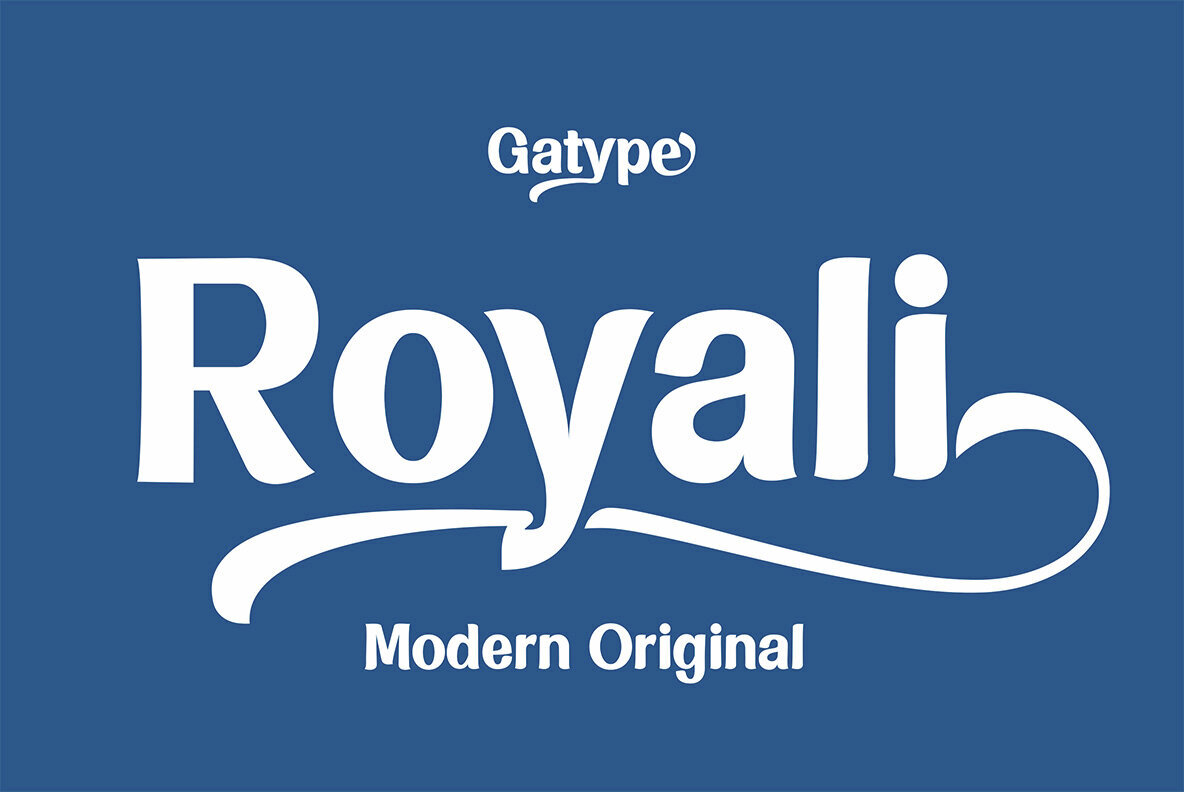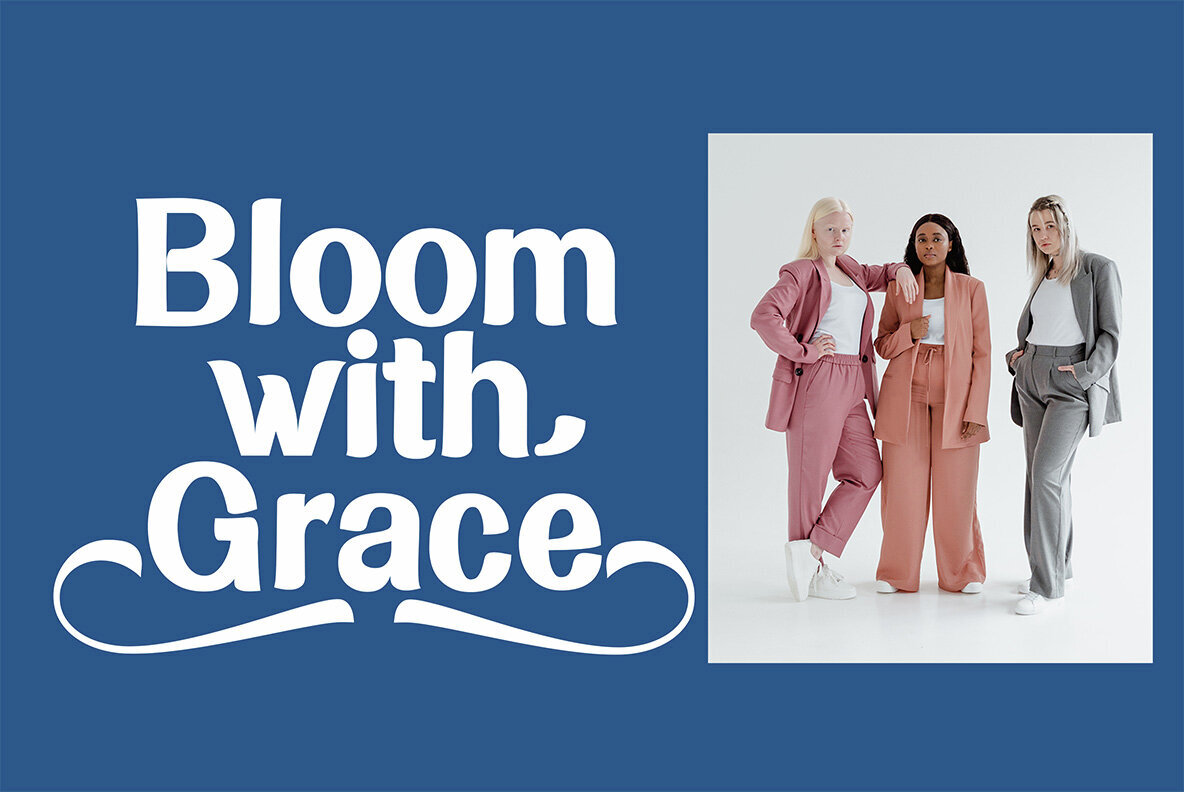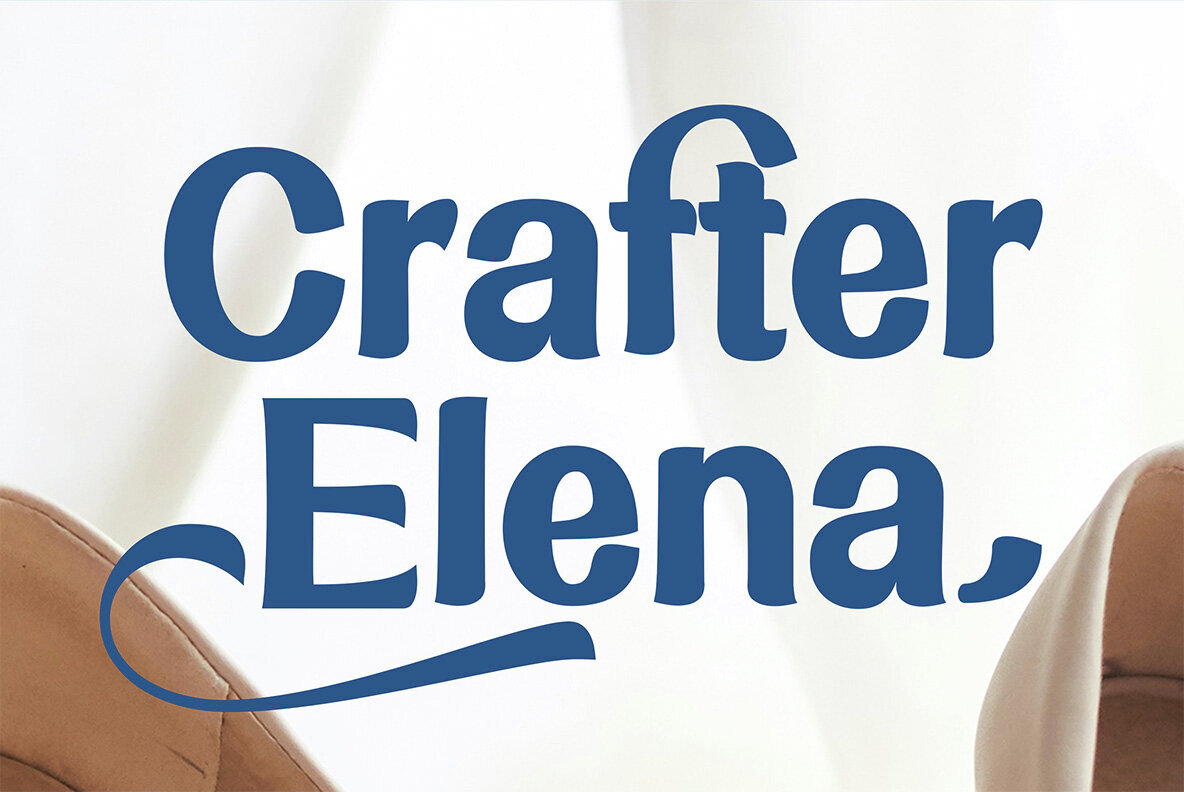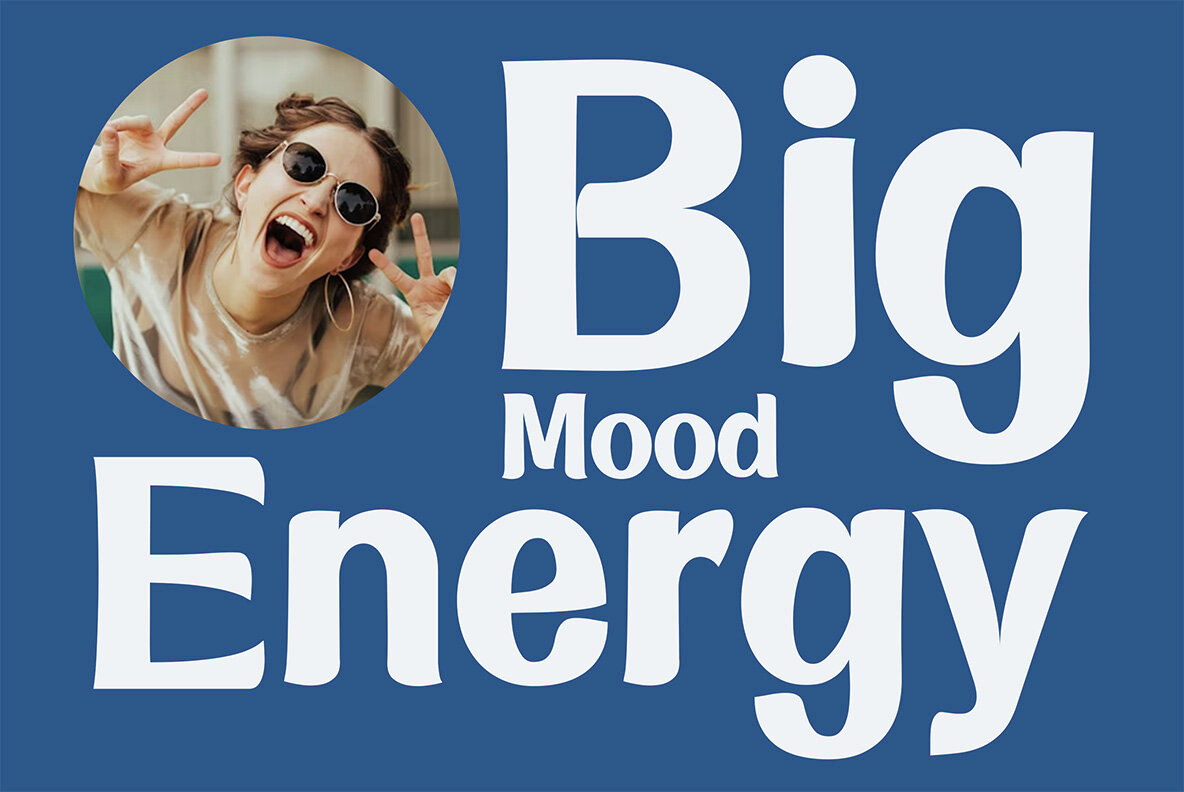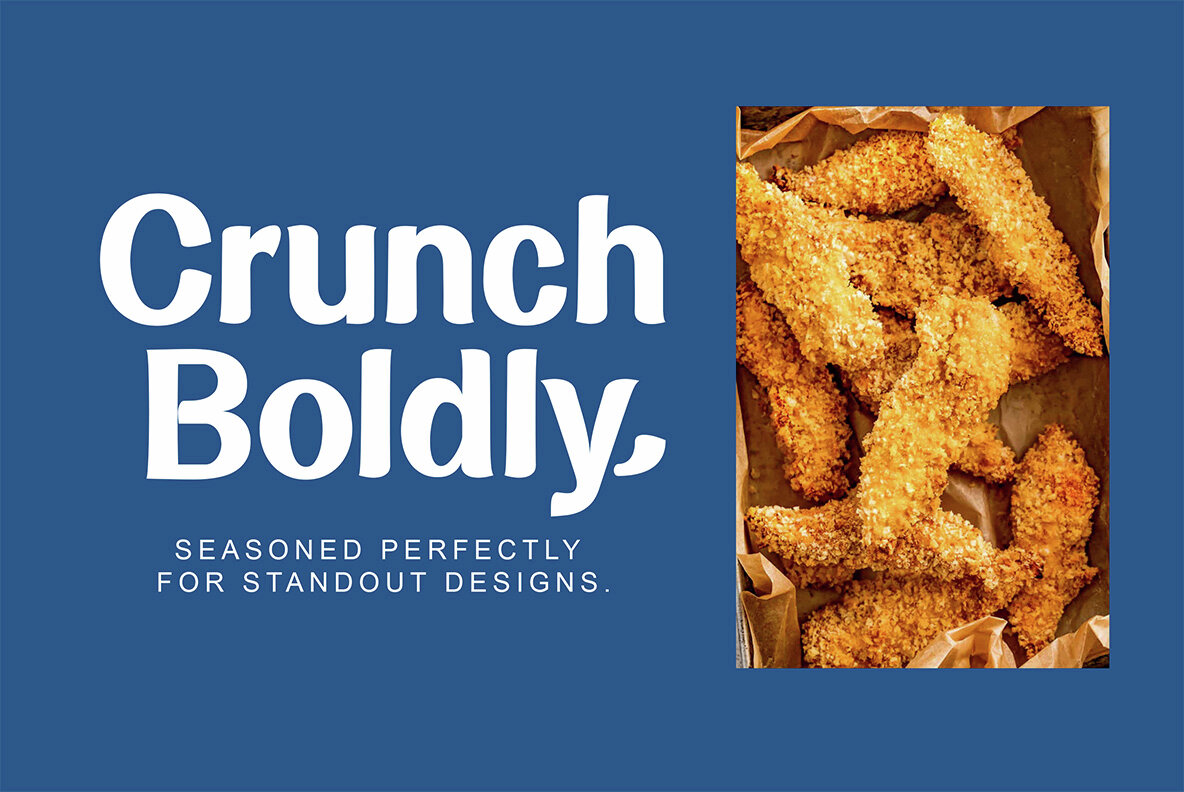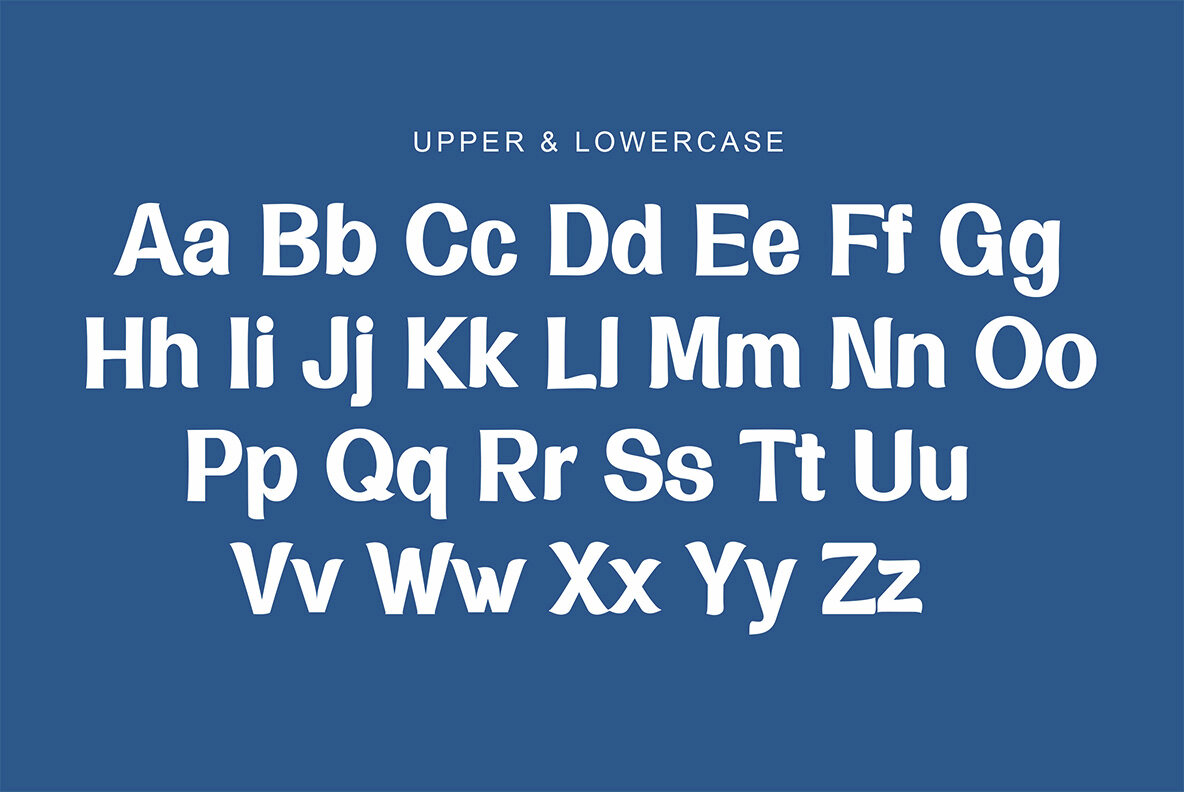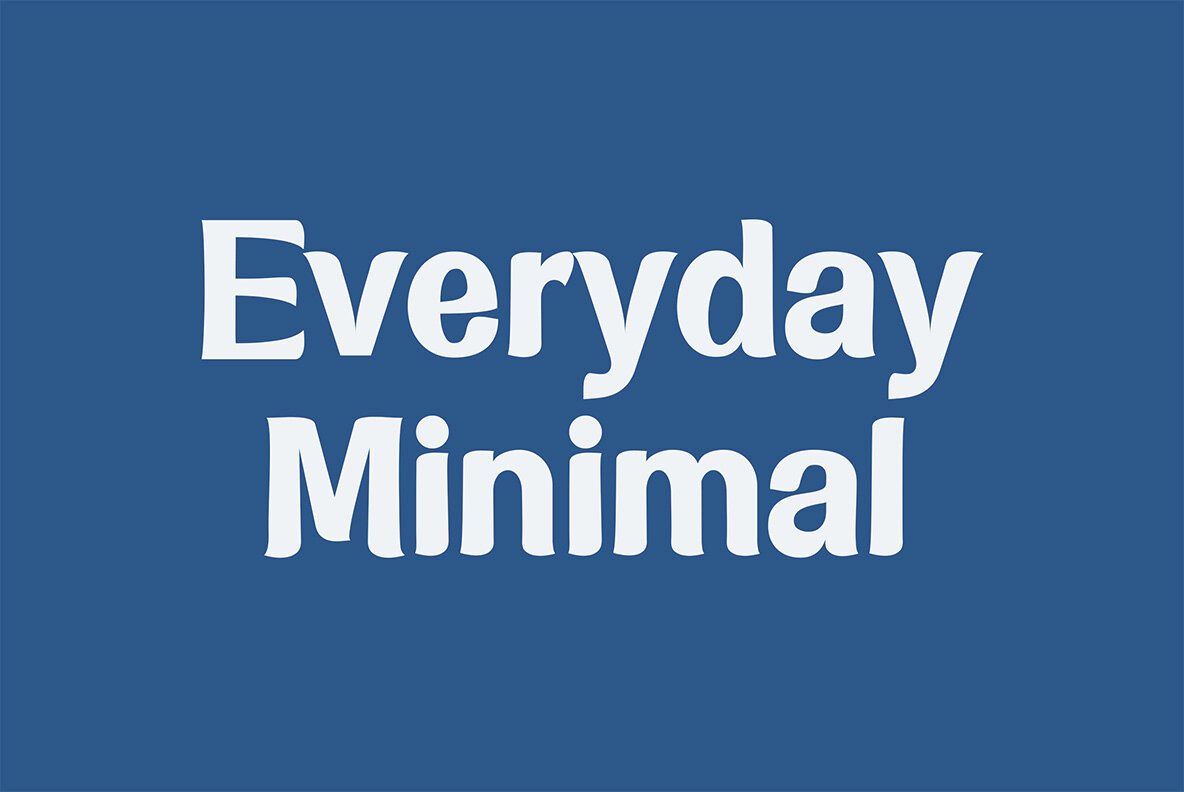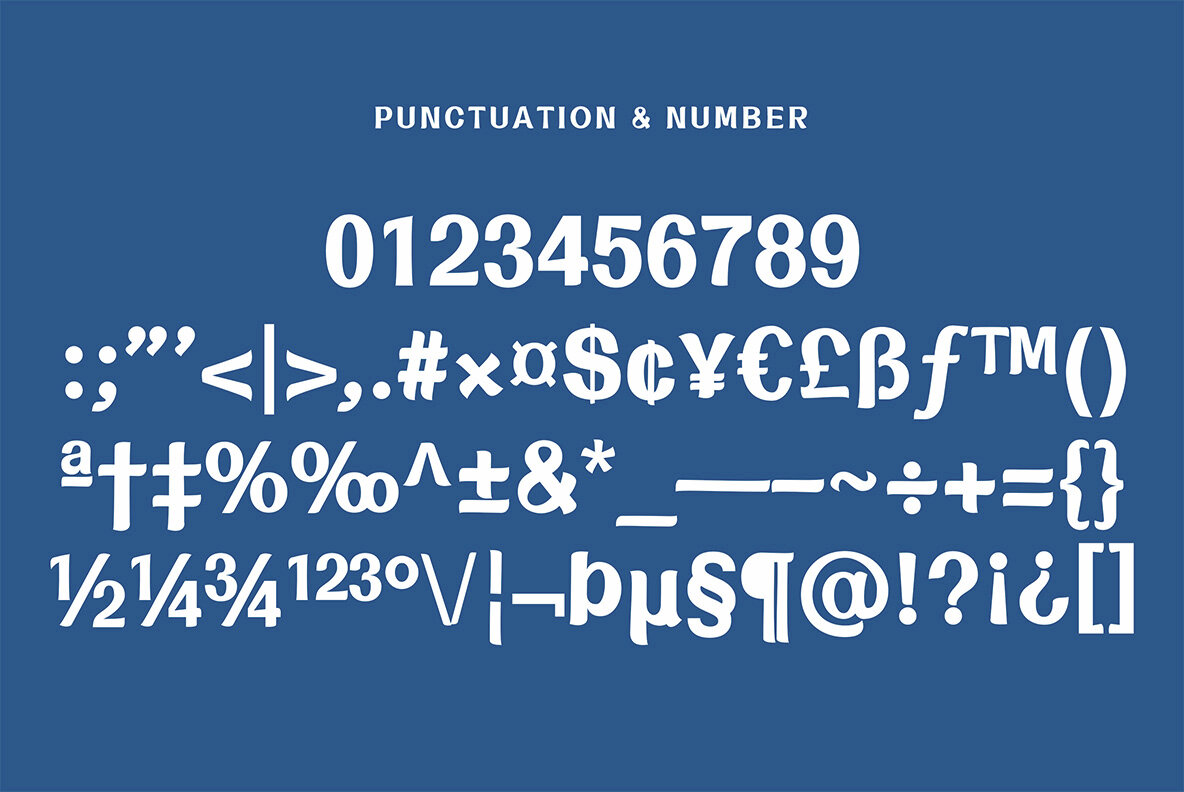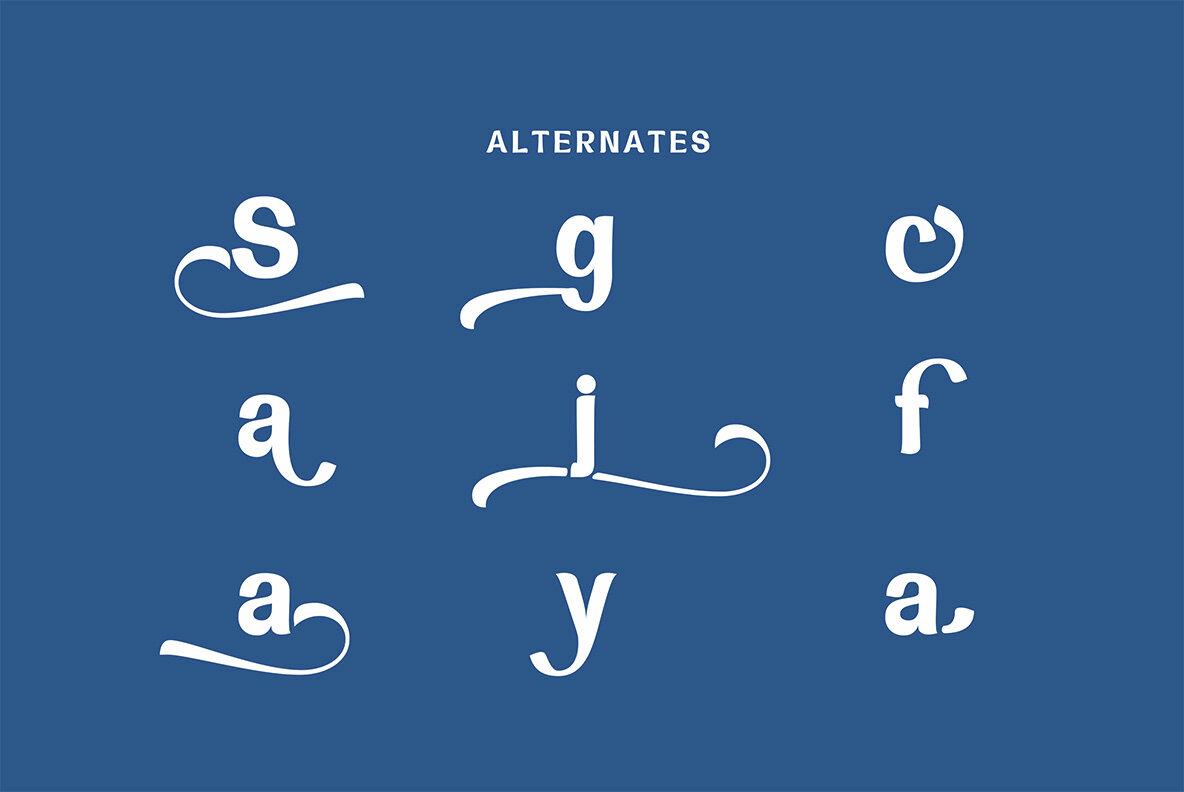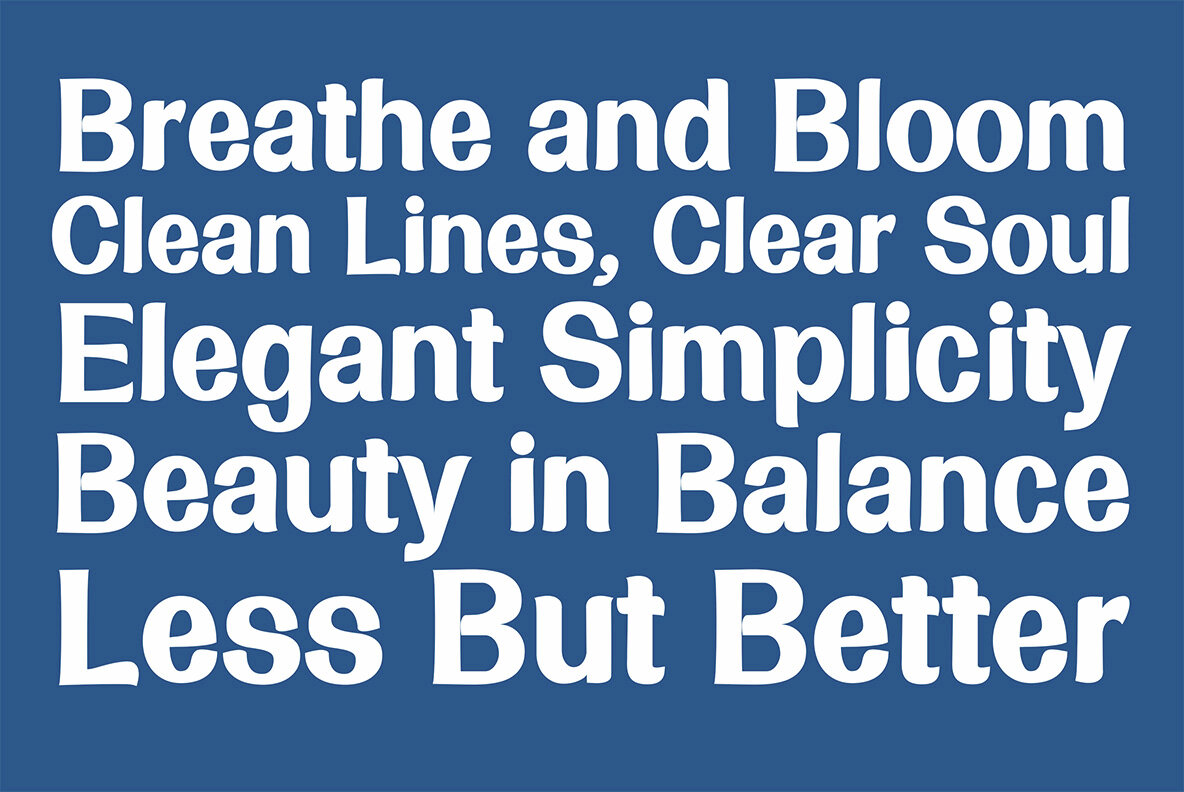
Royali Font
Royali
Royali brings refined elegance to your typography. This modern serif balances timeless sophistication with a fresh, contemporary sensibility. Each letter is carefully shaped for a confident, stylish look that stands out in both bold headlines and delicate body text. Designed for versatility, Royali features a range of alternates and distinctive ligatures. Its aesthetic suits branding, editorial layouts, packaging, or invitations that require a touch of luxury. The subtle curves and original letterforms deliver a regal appearance, making every project feel considered and unique.Royali Modern Elegant Serif